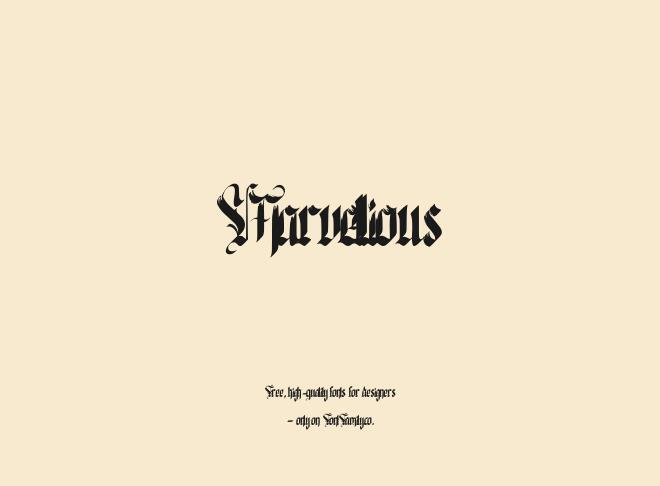
Marvellious Font
Introducing the Marvellious Font, a playful, rustic handwritten font with decorative elements. This font, designed by John Doe Design Studio, brings a unique blend of fun and creativity to any design project. Its distinctive characters, inspired by handwritten letters, add a personal touch, making it perfect for invitations, greeting cards, and branding materials. The decorative elements incorporated in Marvellious Font set it apart from other fonts, adding an artistic flair to your work. The font is easy to read, making it a great choice for both print and digital designs. Its versatility makes it a go-to font for designers working on different projects. With its unique style and charm, Marvellious Font is sure to make your designs stand out.
Author | John Doe Design Studio |